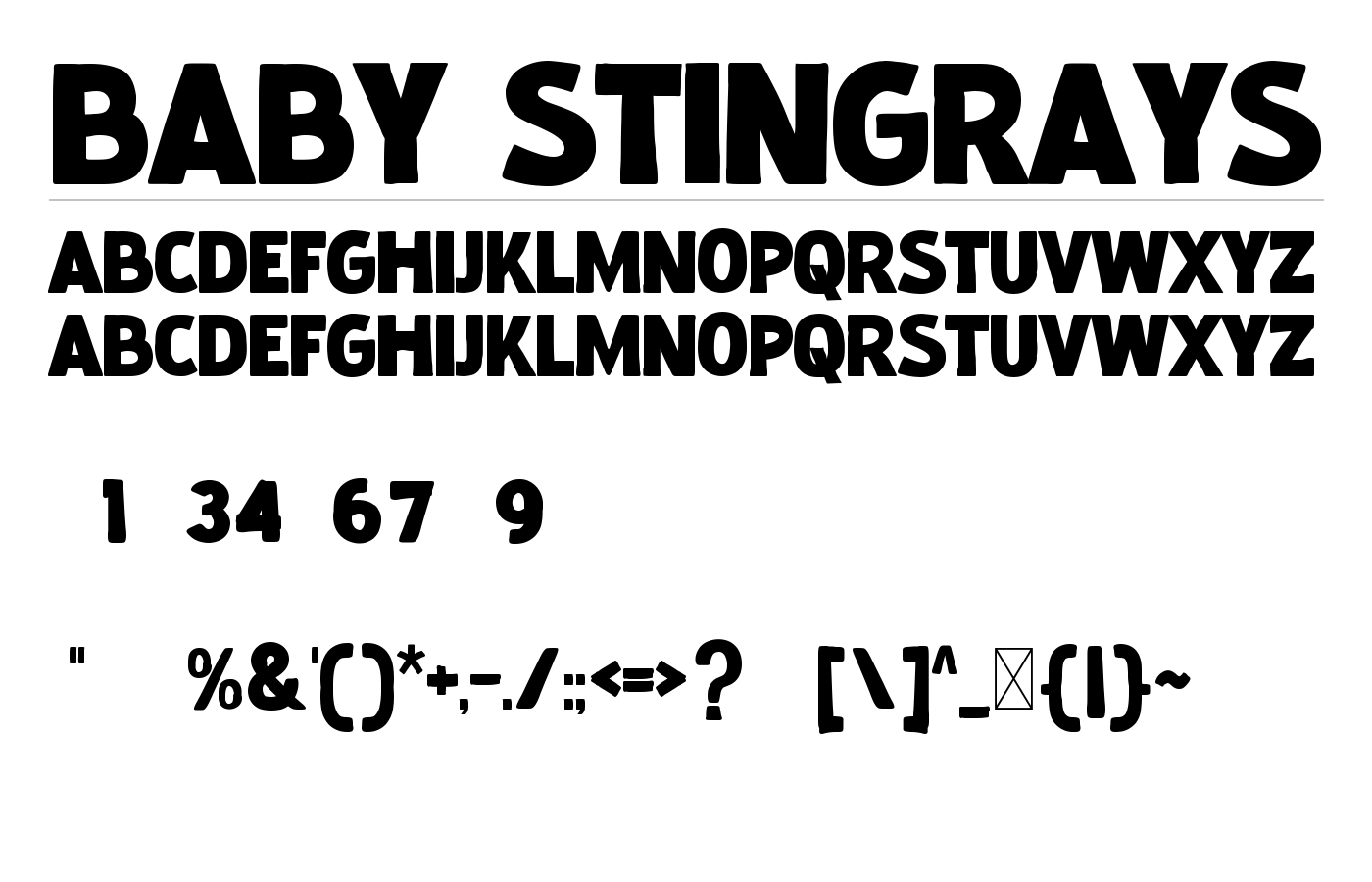
Baby Stingrays is a bold, playful sans serif font with a chunky, slightly irregular design that adds a lively and informal feel. Its wide letterforms and quirky character shapes make it perfect for fun, youthful branding or eye-catching headlines where a friendly and approachable vibe is desired. This font works well in children’s materials, posters, and casual designs that benefit from its energetic personality.
Baby Stingrays Font
About Baby Stingrays Font